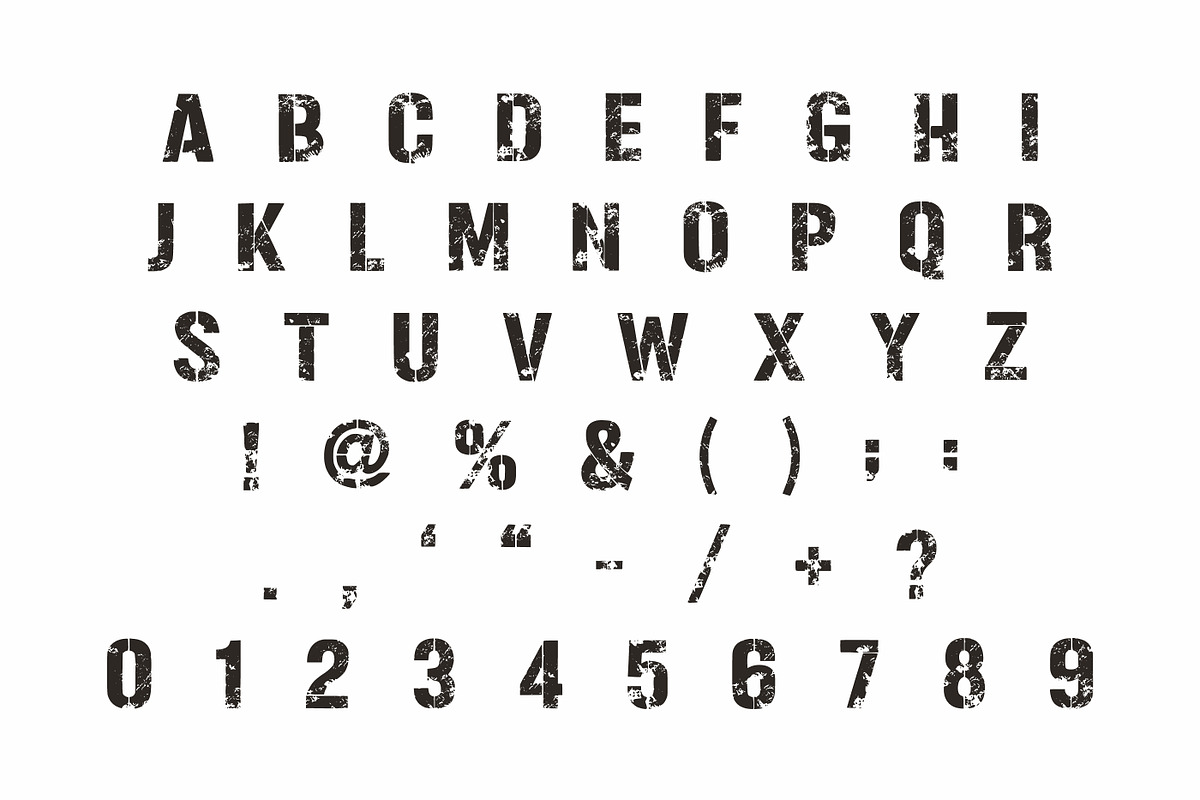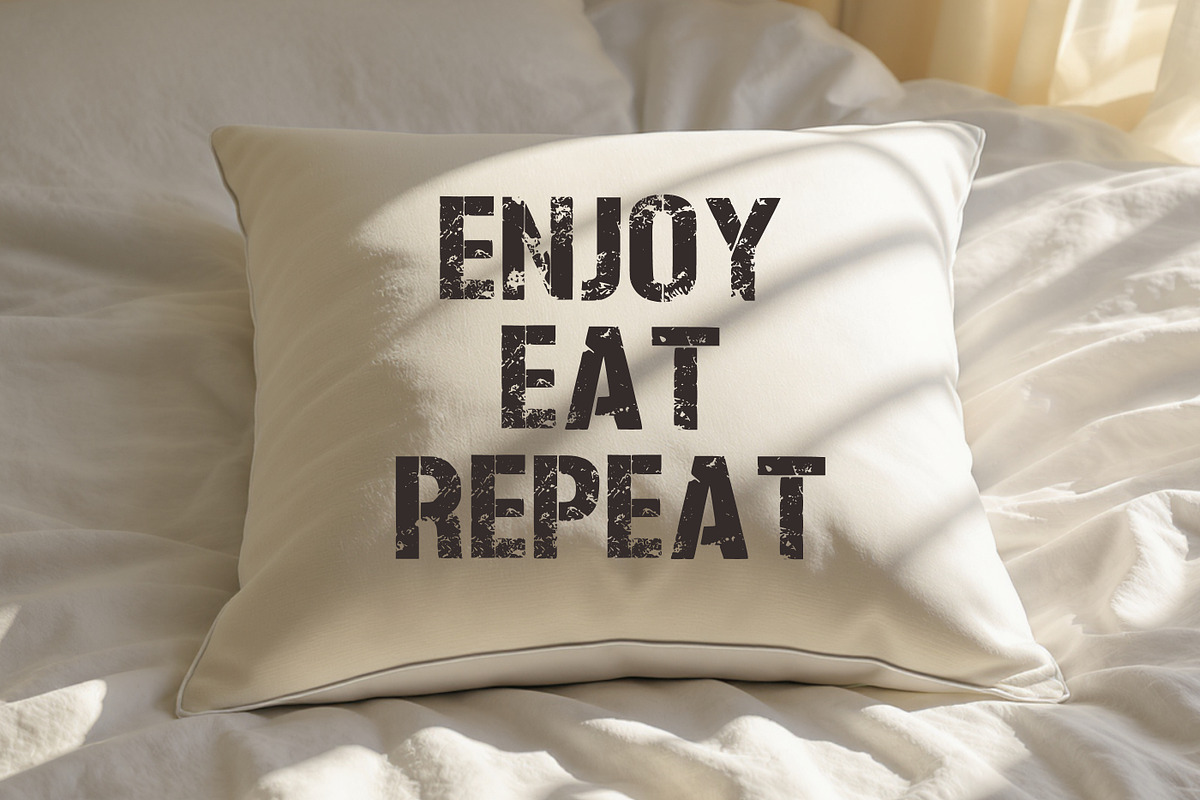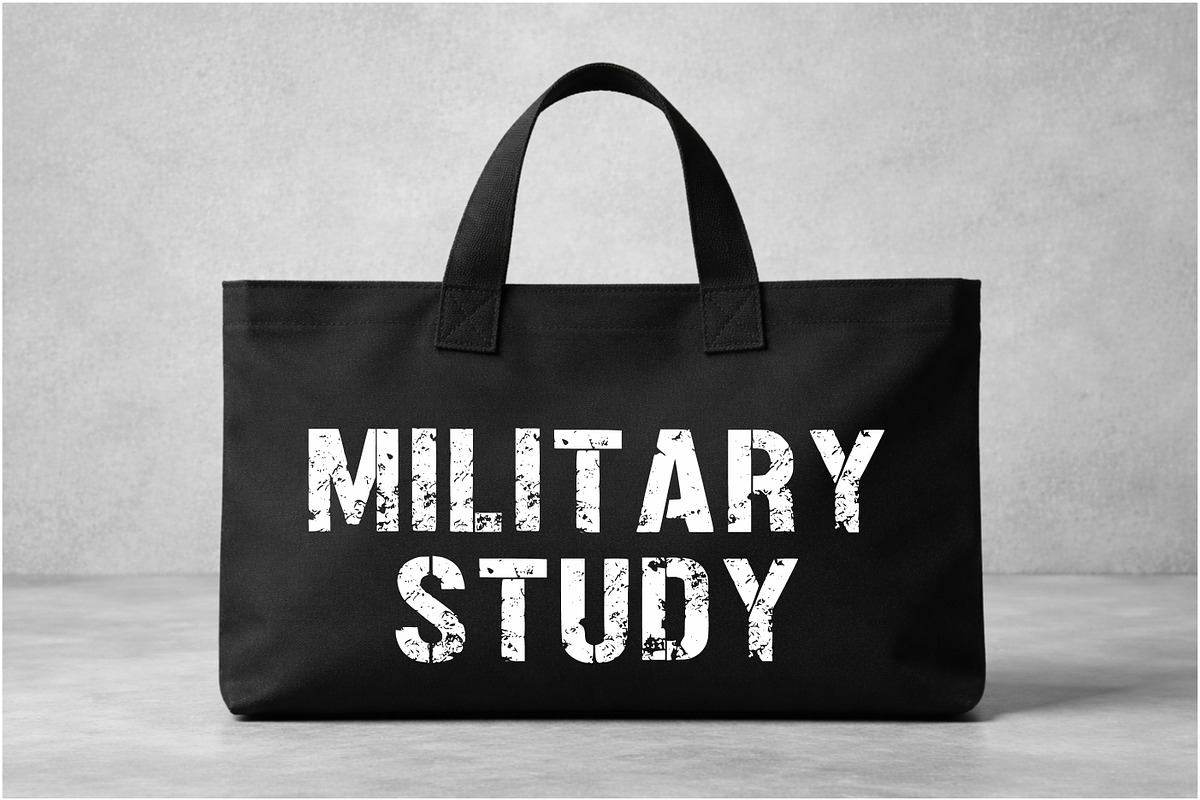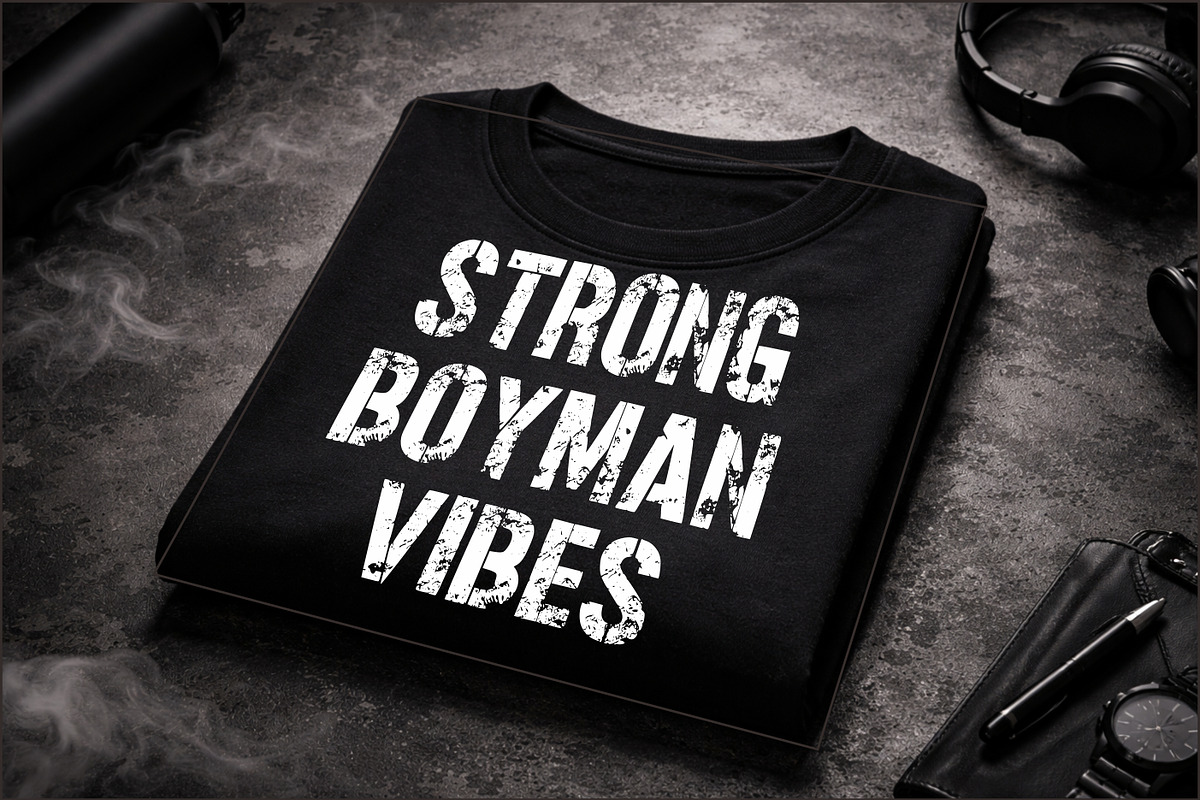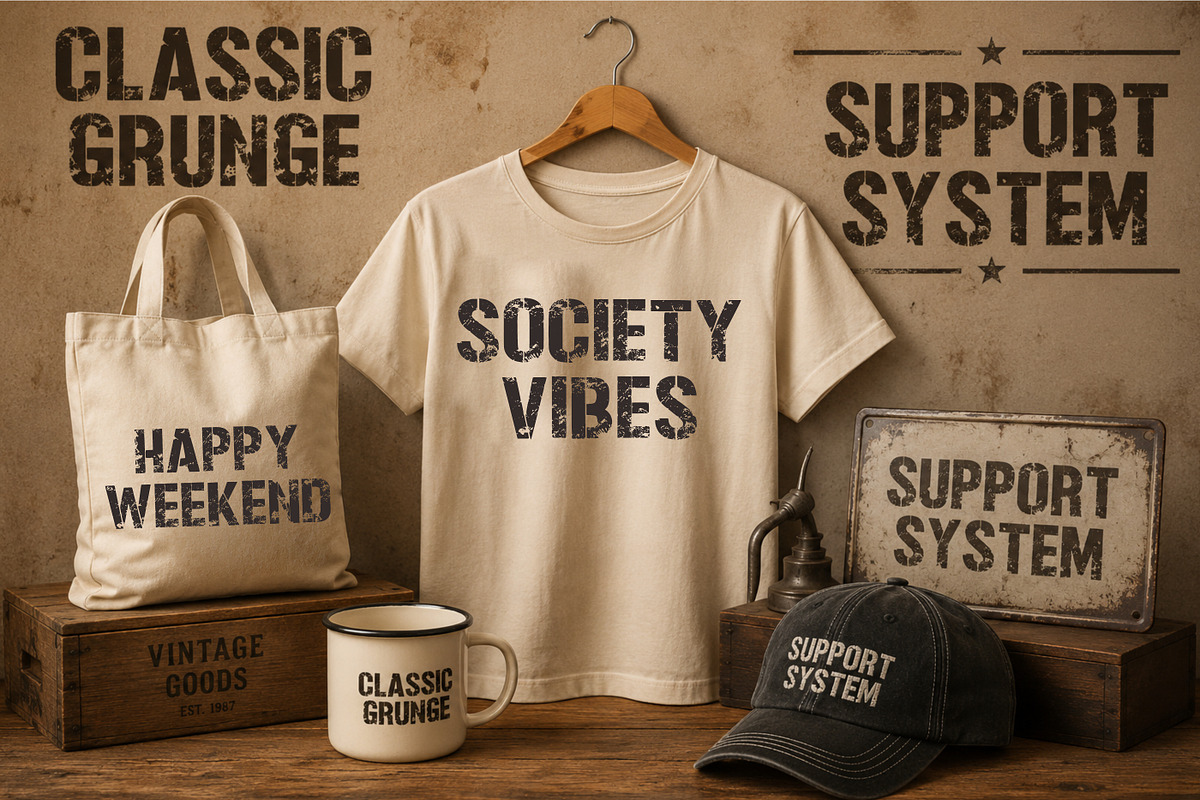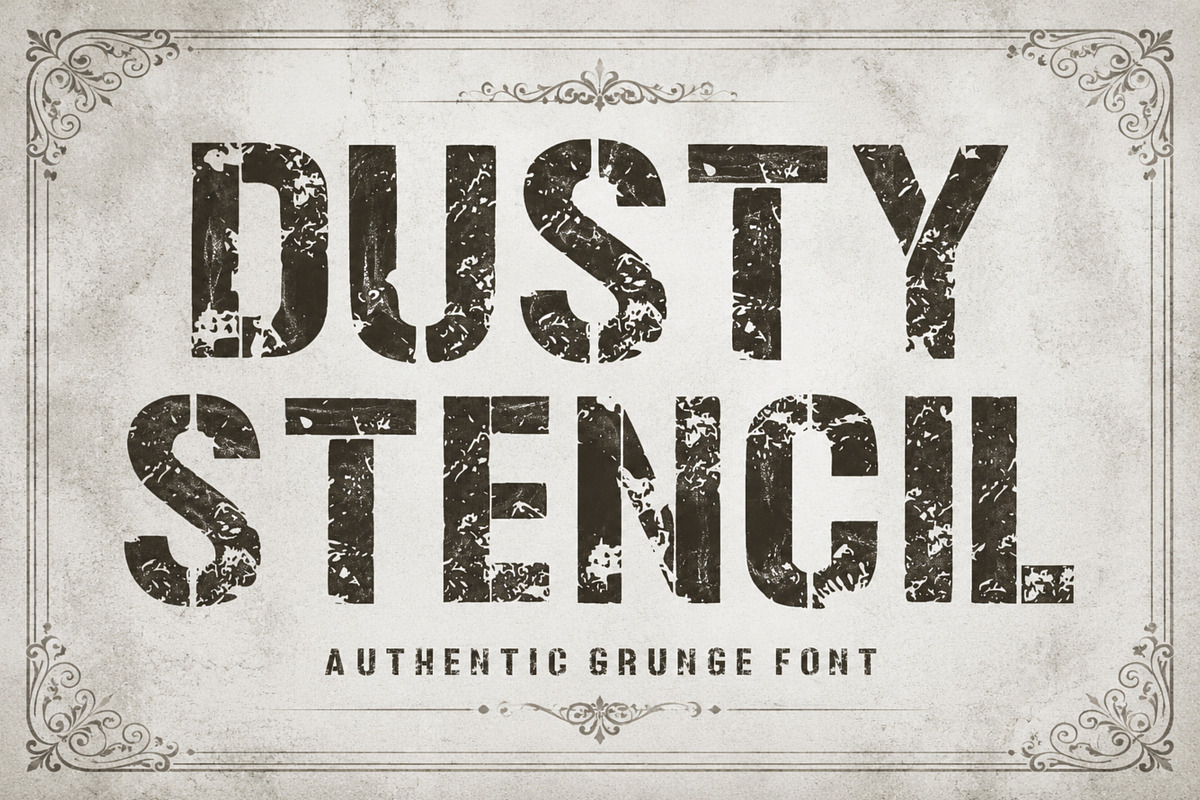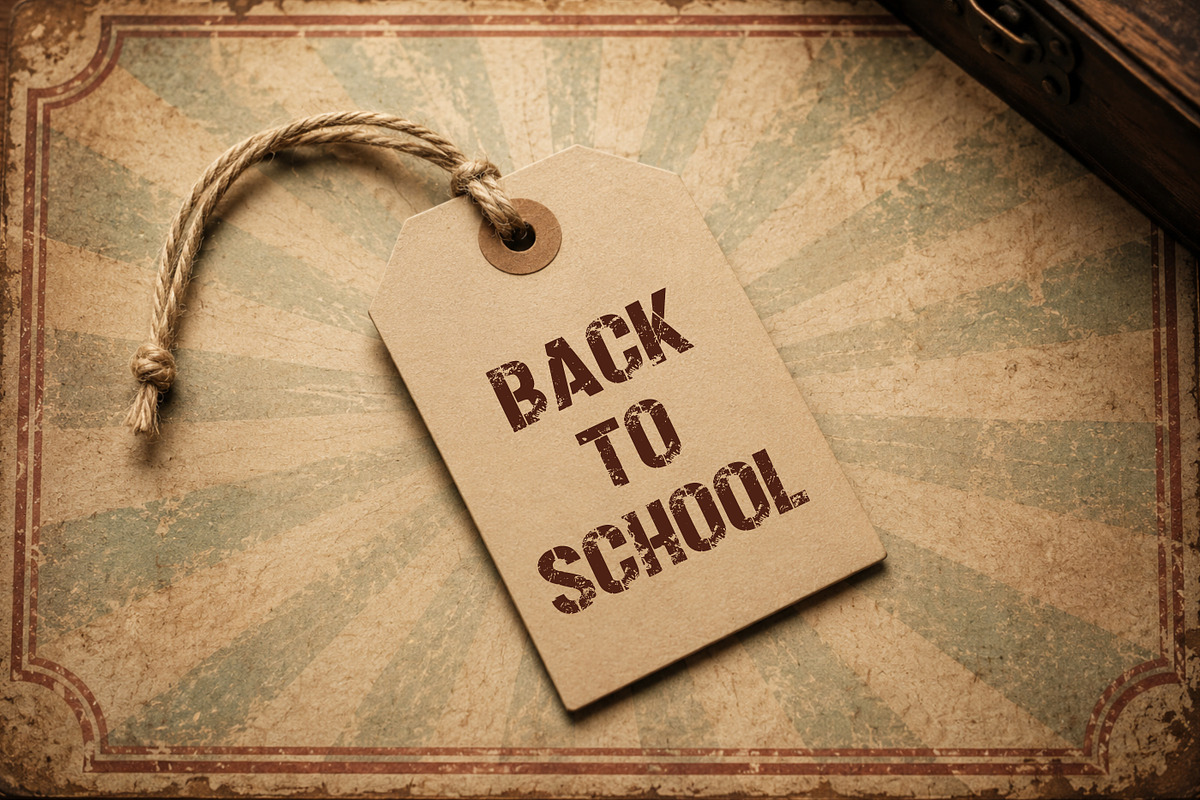
Dusty Stencil
Introducing Dusty Stencil, an authentic grunge stencil font designed to capture the rugged charm of vintage military lettering and weathered industrial signage.
Featuring bold stencil-cut characters combined with realistic distressed textures, this typeface is ideal for creating eye-catching designs with a strong vintage and masculine aesthetic. Every letter carries an aged appearance that adds depth, authenticity, and character to your projects.
Dusty Stencil works perfectly for logos, posters, apparel graphics, branding, packaging, labels, merchandise, outdoor themes, workshop signs, and retro-inspired designs.
Vintage Branding
Military Designs
Industrial Projects
T-Shirt Graphics
Posters & Flyers
Logos & Labels
Rustic Signage
Retro Typography